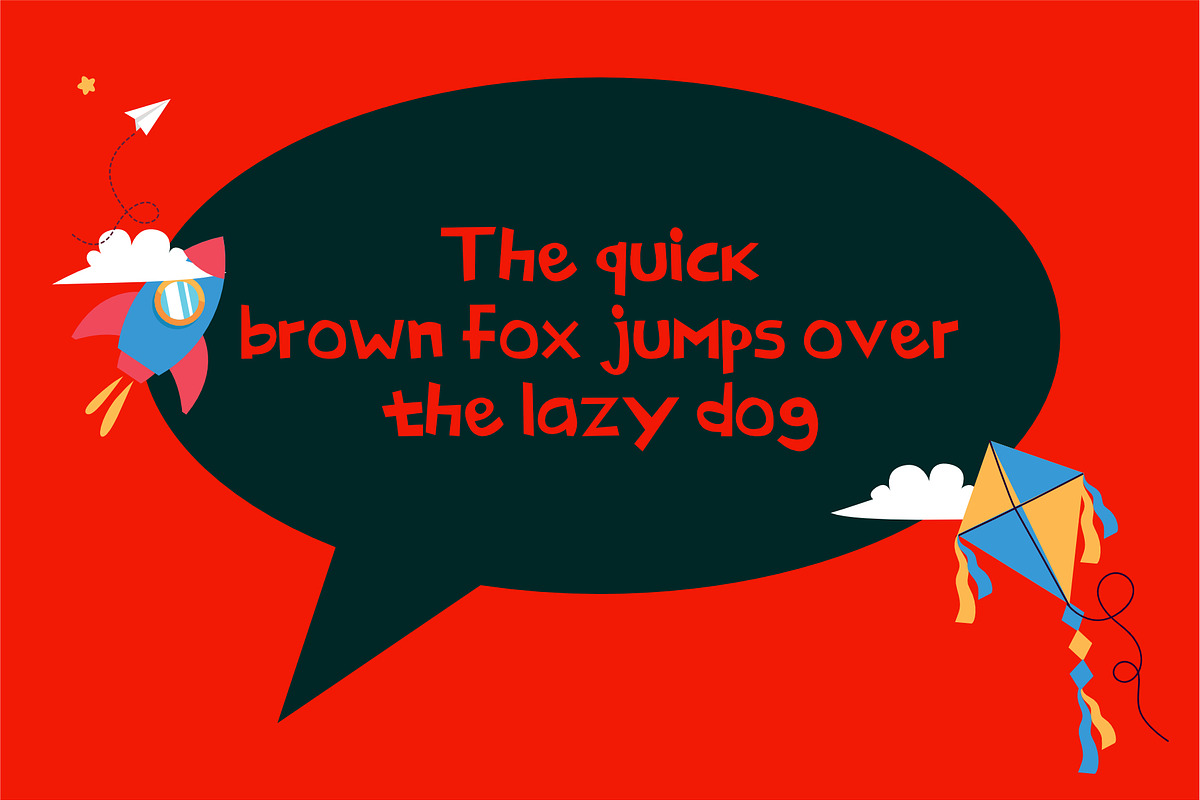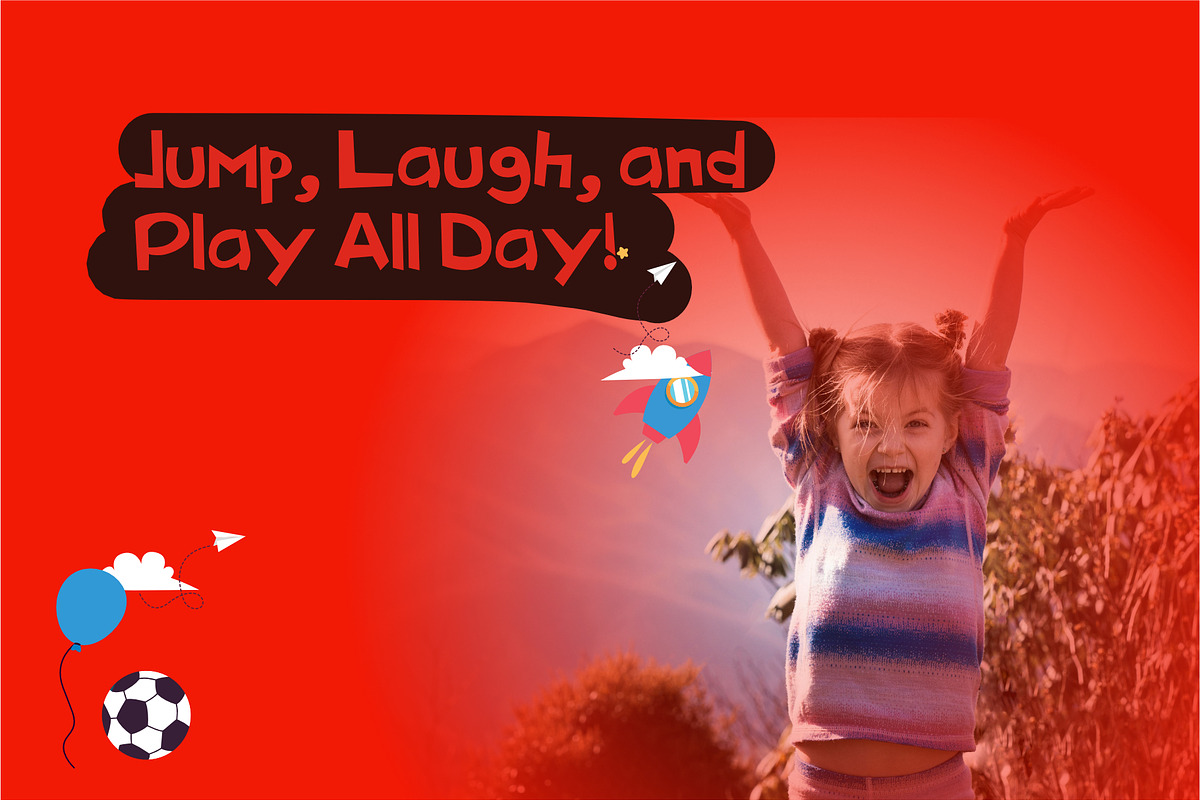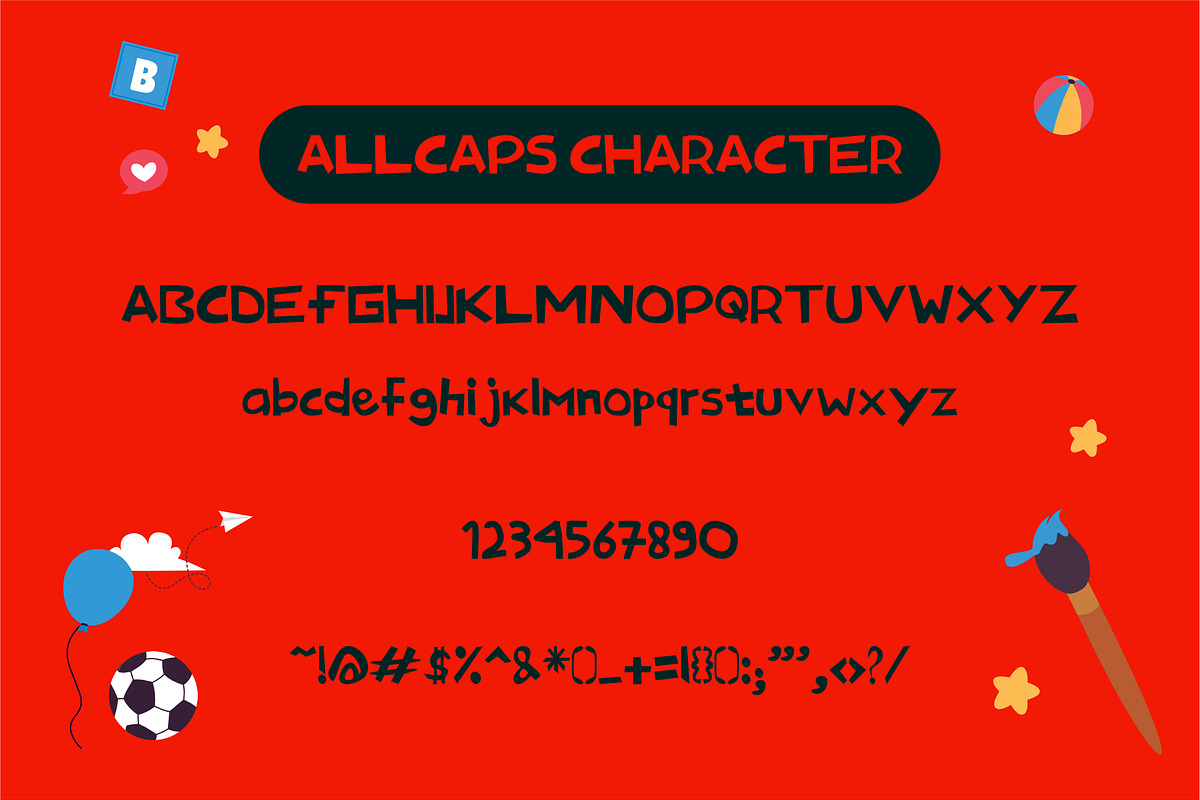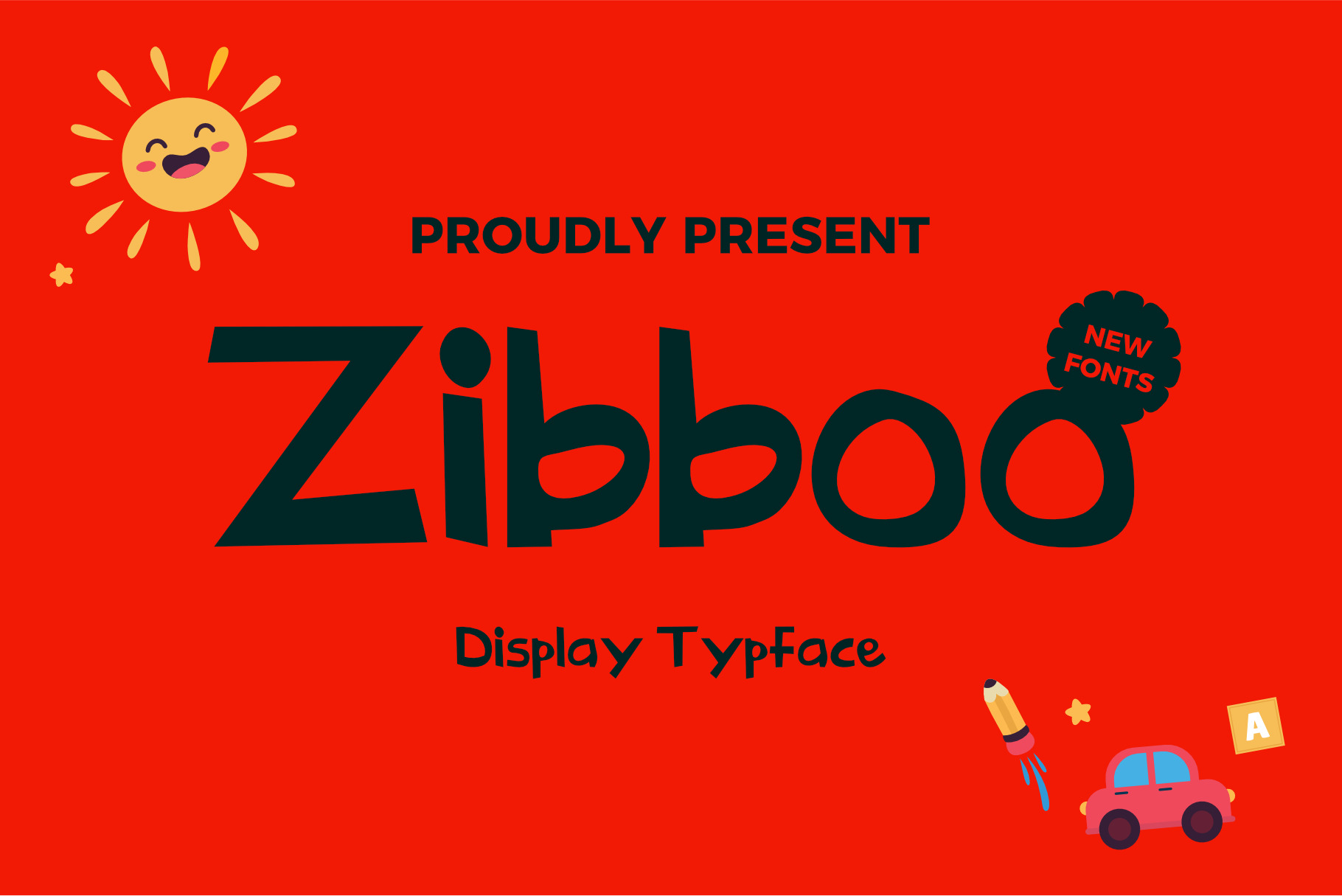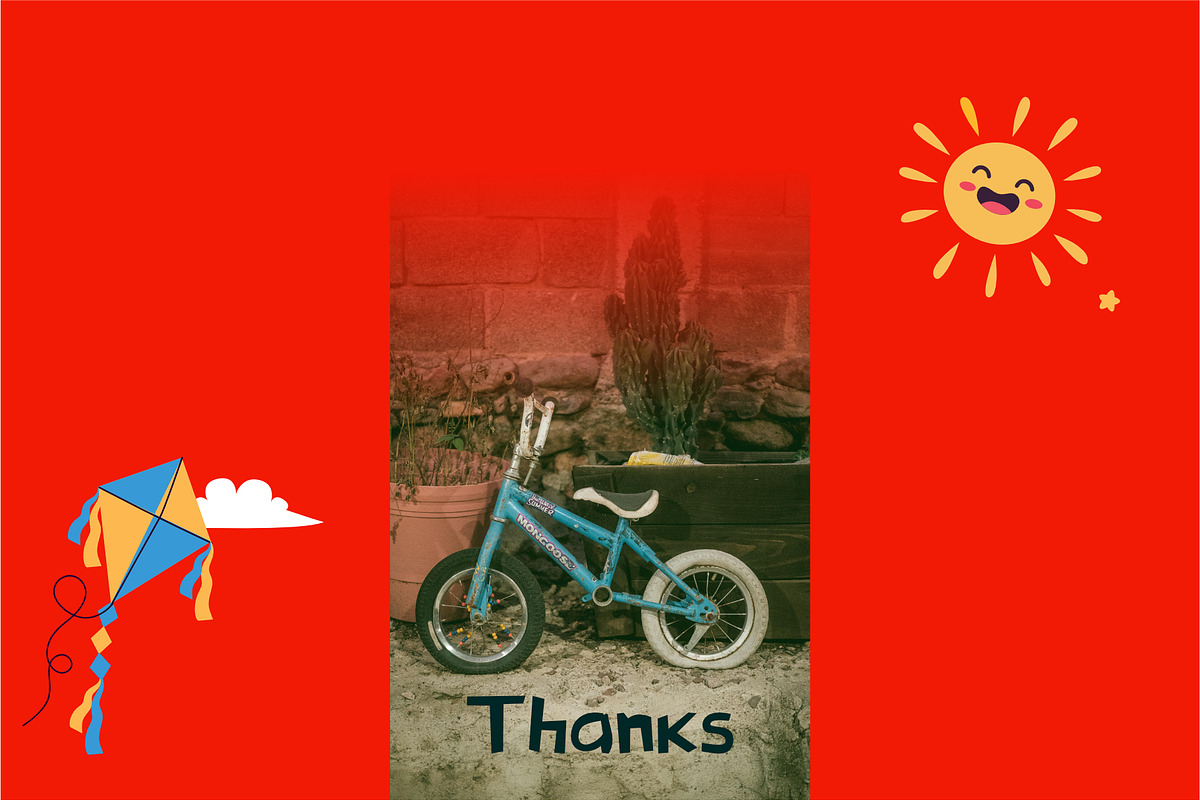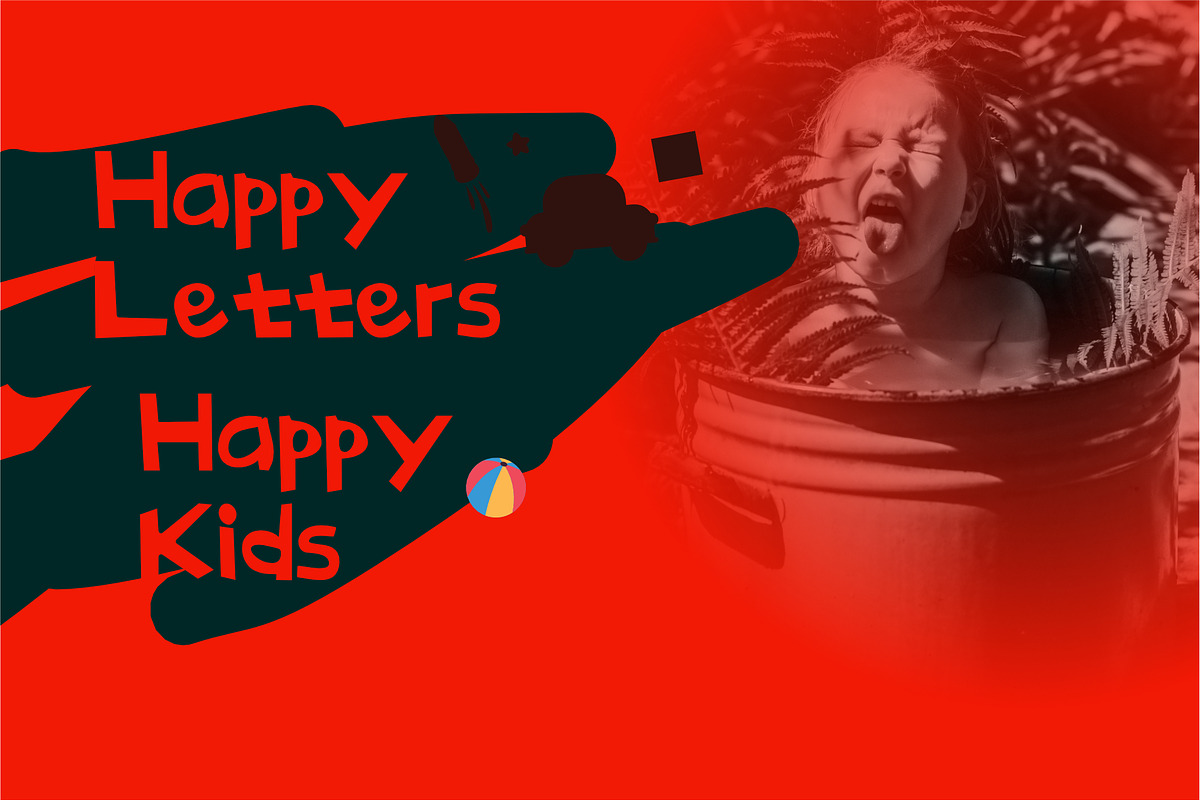
Zibboo Font
Zibboo is a playful and cheerful kids font designed to bring joy to every word. With its rounded shapes and fun, bouncy style, Zibboo is perfect for children’s books, educational materials, toys, posters, and playful branding. Friendly, easy to read, and full of personality, Zibboo makes any design feel happy and lively.
Feature : Uppercase (All Caps) Alternate Numerals Punctuation Easy To Install